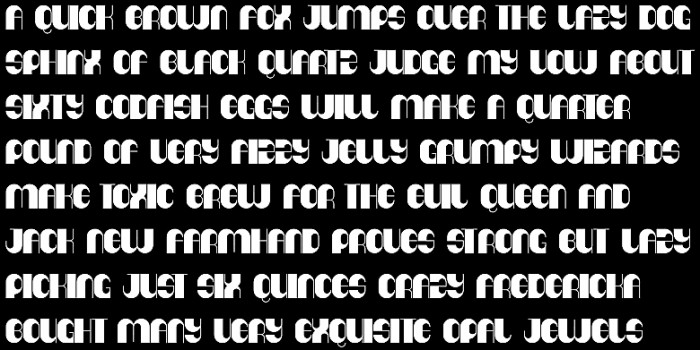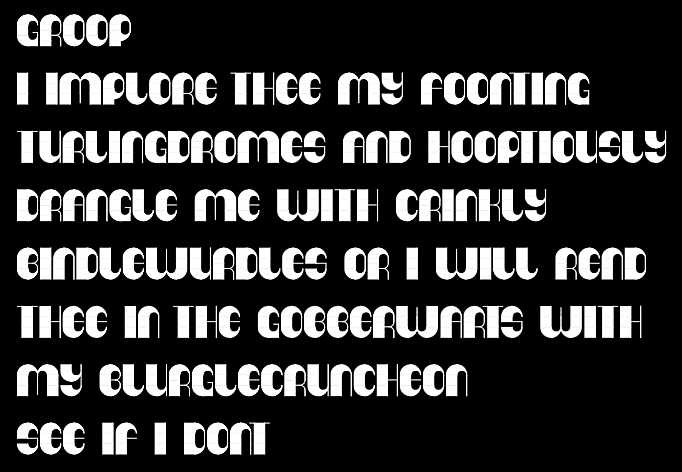
The most interesting of the group... I think you should finishing it, it's a nice font.
Both the same, but the second image is more crisp looking...
Anyway, this was my idea of a Hit-N-Run-quick fix for the uppercase letterset.